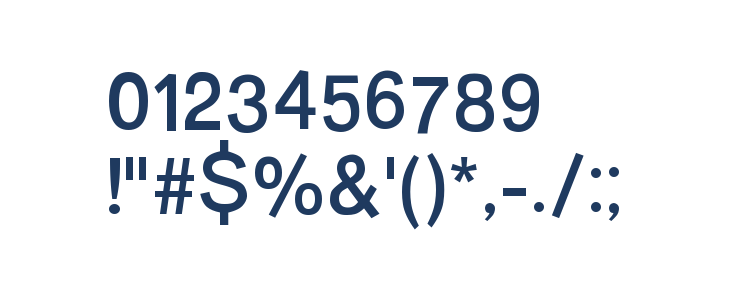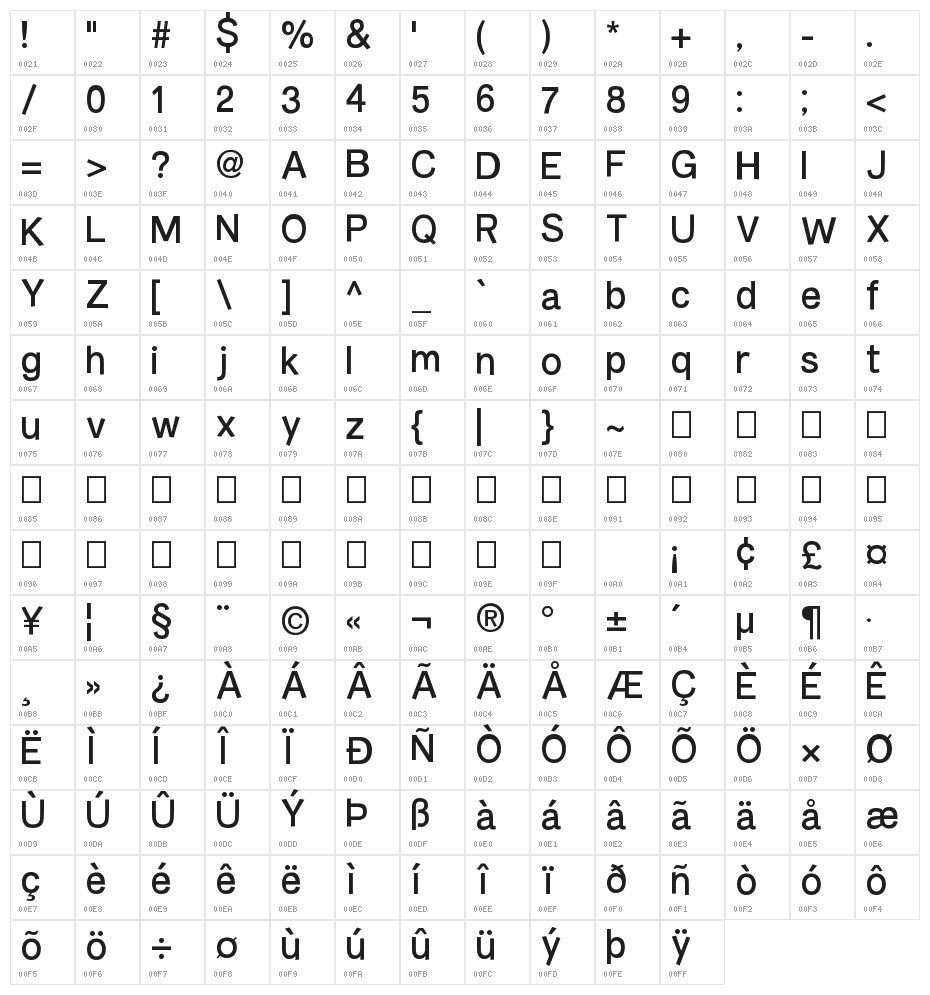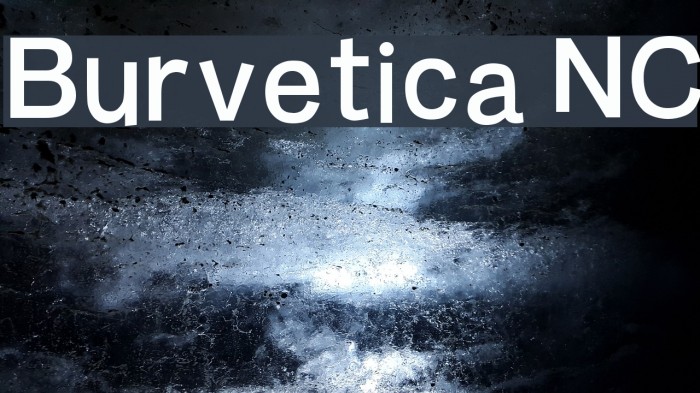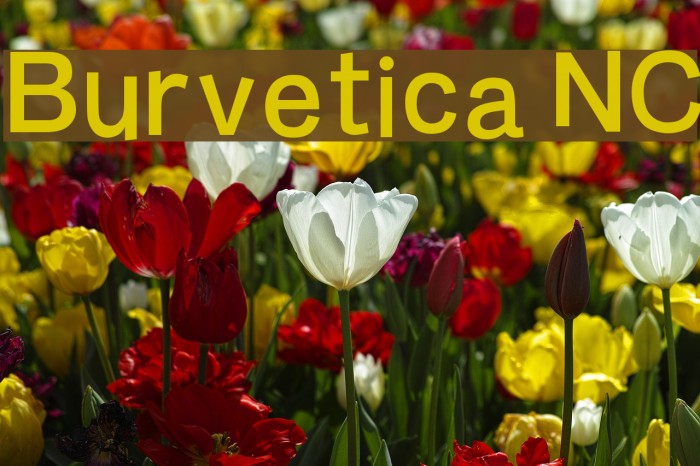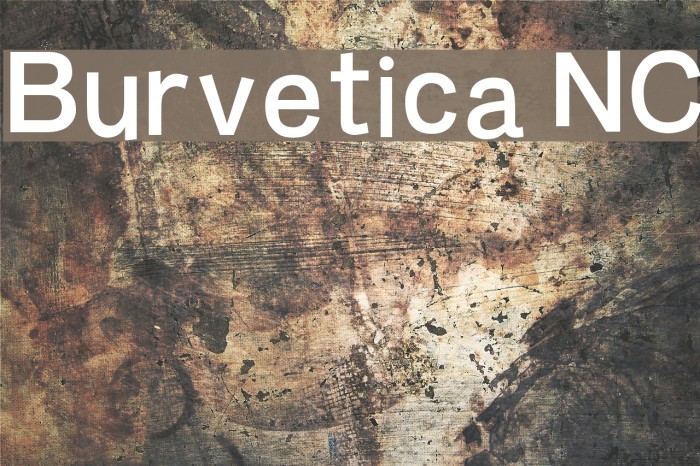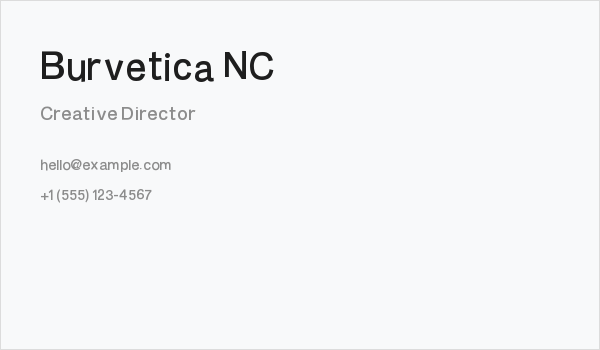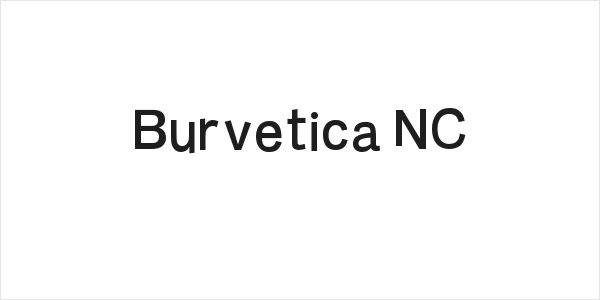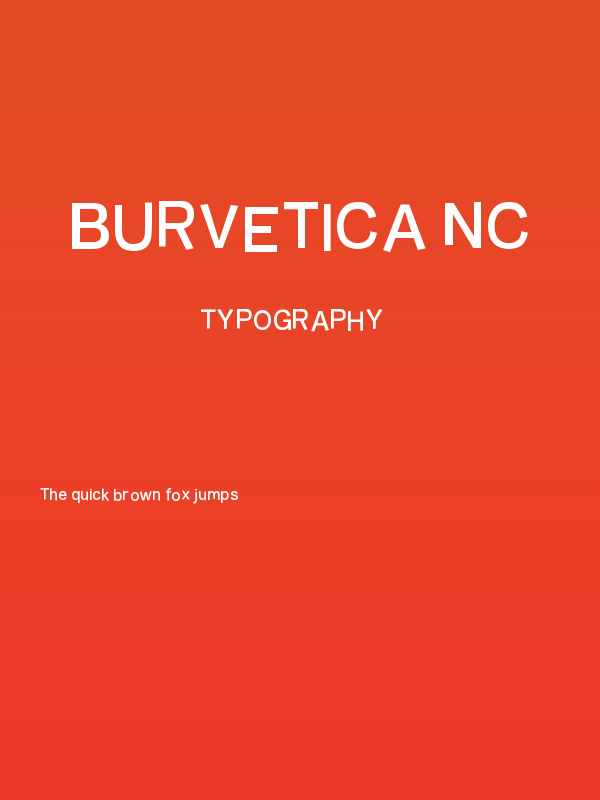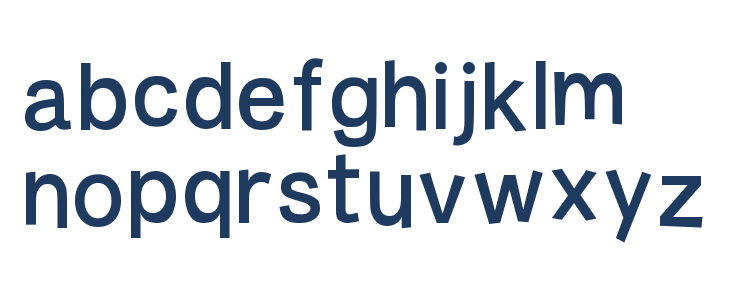
Burvetica NC Font
Burvetica NC Description
This font is a clean and modern sans-serif typeface characterized by its bold and uniform stroke width, providing a strong and impactful appearance. The characters are well-balanced with a geometric structure, offering a sense of stability and professionalism. The uppercase and lowercase letters are clear and legible, making it suitable for a variety of applications. The numerals are straightforward and align well with the overall design, while the special characters maintain the same level of clarity and consistency. The font's simplicity and versatility make it an excellent choice for both digital and print media.
| Use Case | Headlines, Logos, Digital interfaces |
| Proposed Projects | Ideal for branding, advertising, headlines, and digital interfaces. |